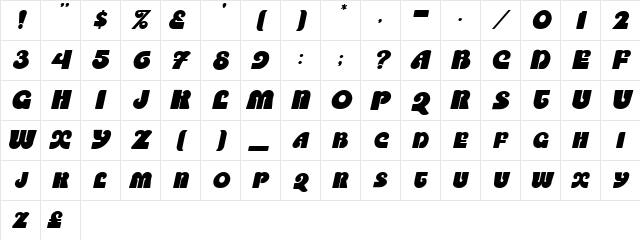
SaltireCaps Oblique Free Font
SaltireCaps Oblique
Design Context for SaltireCaps
SaltireCaps is a composed and adaptable typeface that performs quietly and consistently across a wide range of design contexts. The slanted form adds forward momentum and visual energy.